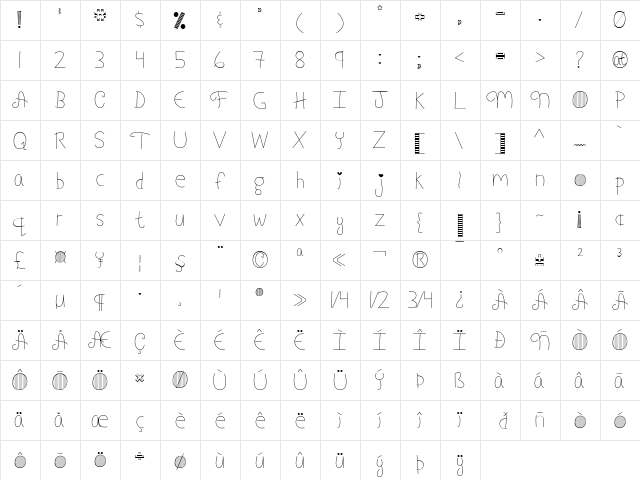
My Font Addiction Regular
| Foundry | Misti's Fonts (Misti Hammers) |
| Designer | Misti's Fonts (Misti Hammers) |
Design Context for My Font Addiction Typeface
My Font Addiction is a composed and adaptable typeface that performs quietly and consistently across a wide range of design contexts.